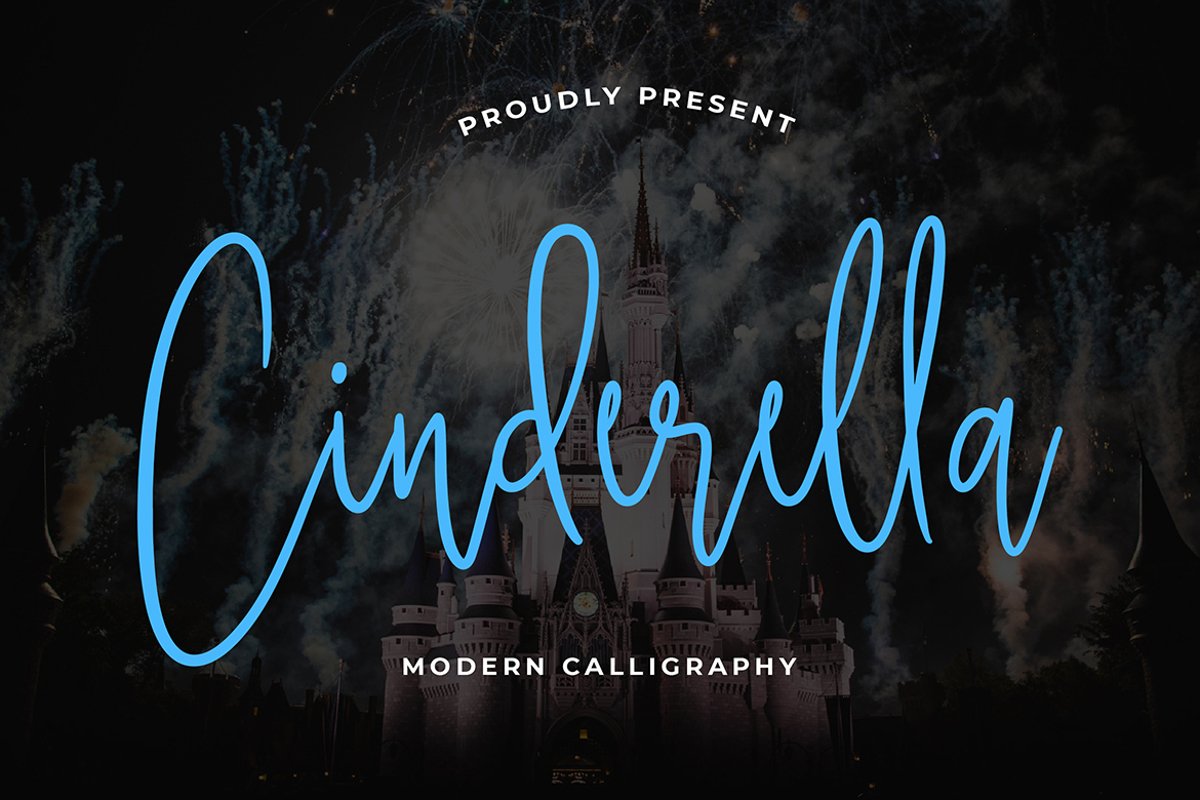
Cinderella Calligraphy Font
Cinderella
Cinderella is a beautiful calligraphy font with modern style. It’s perfect for adding a graceful feel to any design project.Cinderella is perfect for branding projects, logo, wedding designs, social media posts, advertisements, product packaging, product designs, label, photography, watermark, invitation, stationery and any projects.What's Included :